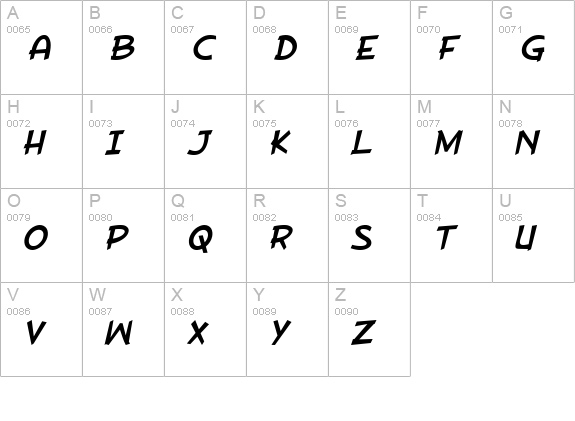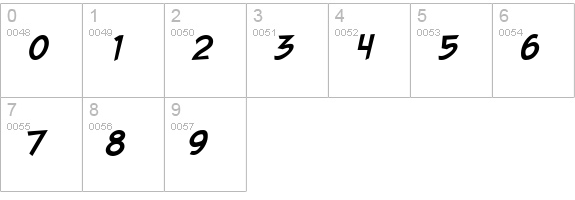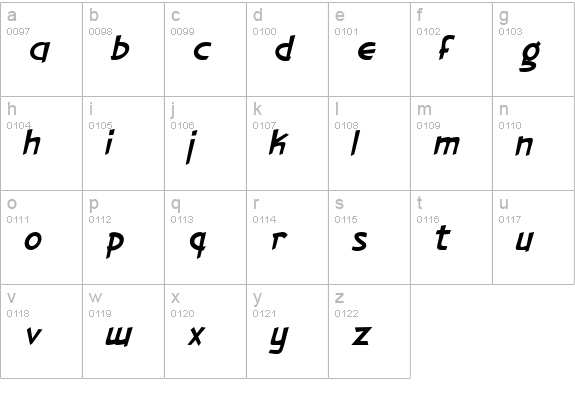
Gorilla Milkshake Italic Font Details
Gorilla Milkshake Italic is a distinctive, italic variant in the Gorilla typeface family \xE2\x80\x94 well suited to design and typography projects.
Gorilla Milkshake Italic font is a bold and powerful typeface that exudes strength and sophistication. Its unique italic design adds a touch of elegance, making it perfect for a wide range of creative projects. Whether you're designing a logo, a poster, or a website, this font will make a bold statement and grab attention. With its strong and slanted letterforms, Gorilla Milkshake Italic font demands attention, making it ideal for headlines and titles. Its thick strokes and distinctive curves create a sense of power and confidence, while still maintaining a touch of playfulness. What sets Gorilla Milkshake Italic font apart is not just its eye-catching design, but also the fact that it is freely available to download at FontsMarket.com. This means you can easily access and use this font in your projects without any restrictions or limitations. Whether you're a professional designer or a hobbyist, this font allows you to unleash your creativity without any barriers. Gorilla Milkshake Italic font is perfect for a variety of design projects, from branding and packaging to editorial and advertising. Its versatility makes it suitable for both digital and print media, ensuring that your message will be conveyed with impact and style. So why settle for ordinary when you can have extraordinary? Download Gorilla Milkshake Italic font for free at FontsMarket.com and take your designs to the next level. With its bold and captivating presence, this font is sure to make a lasting impression and elevate your creative projects to new heights.